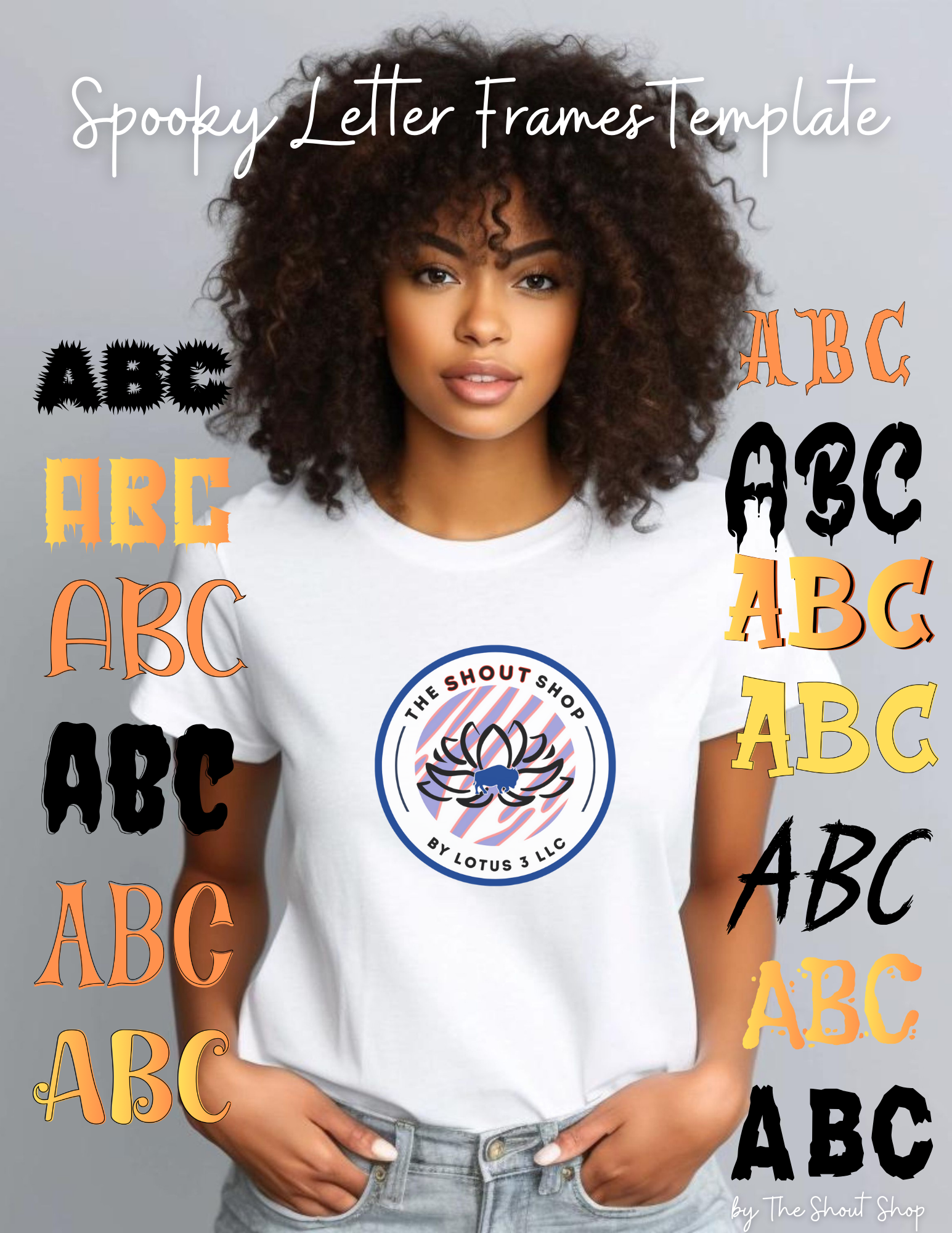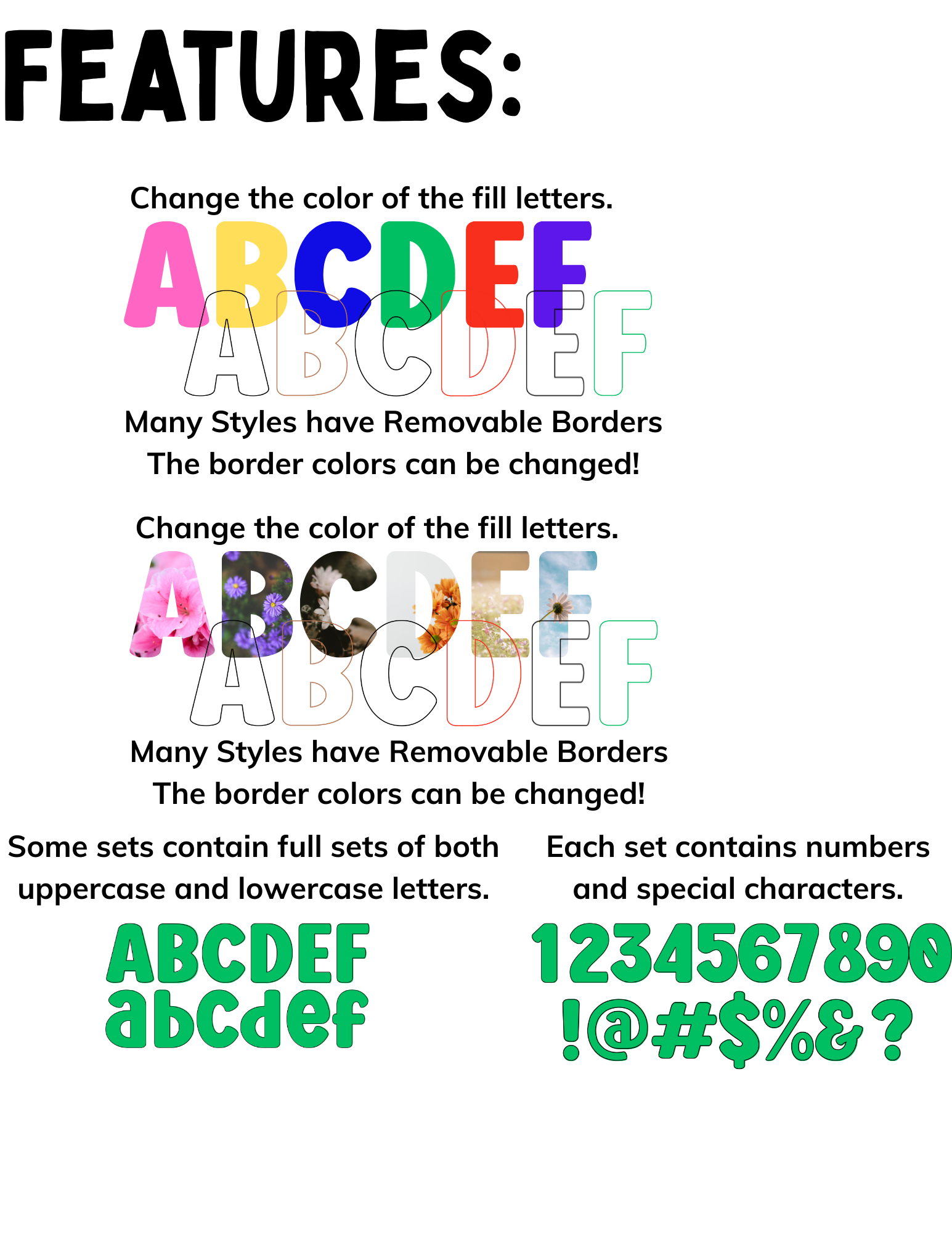
Spooky Halloween Font Canva Template Collection
This collection includes 13 spooky style fonts that are frames with the ability fill with any color or drop any photo into the letters. Many of the fonts have both upper and lowercase fonts. All sets include numbers and other symbols you might need.